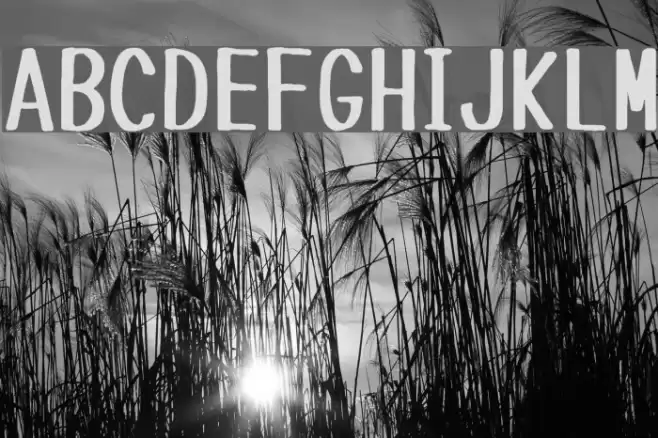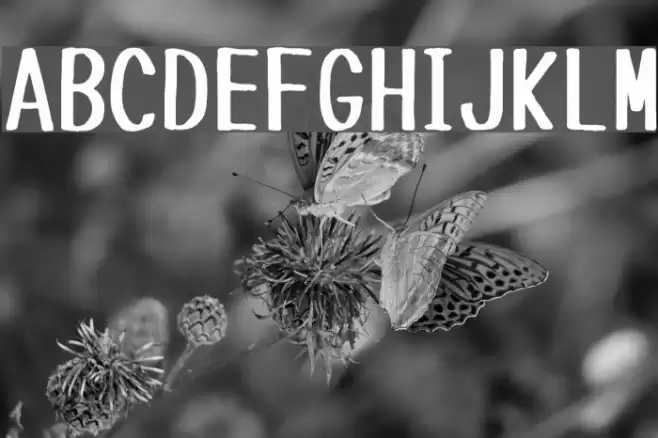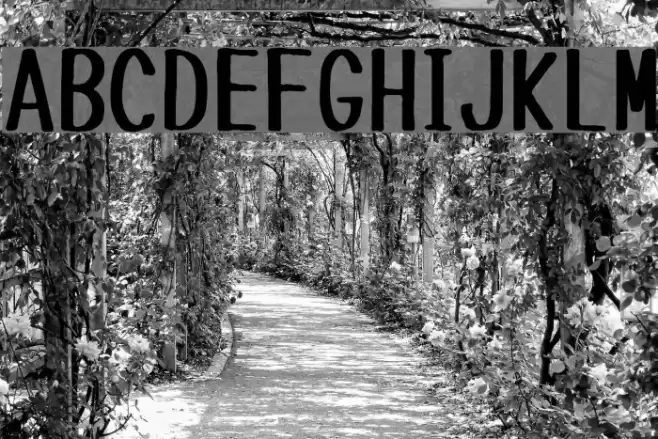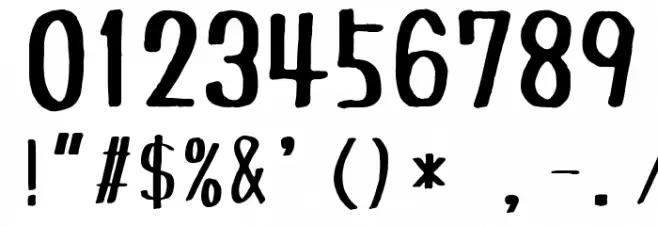
Tanuki Permanent Marker Font
Tanuki Permanent Marker Description
This font exudes a playful and casual vibe, reminiscent of handwritten text with a permanent marker. The characters are bold and slightly irregular, giving them a personal and informal touch. The strokes are thick and consistent, creating a strong visual impact. The uppercase and lowercase letters maintain a uniform style, while the numbers and special characters integrate seamlessly, enhancing the font's versatility. Its hand-drawn appearance makes it ideal for projects that require a friendly and approachable aesthetic.
A bold, handwritten-style font with a playful and casual vibe from Uncategorized fonts.
- Proposed Projects: Ideal for children's book covers, casual posters, greeting cards, and social media graphics.
- Overall Style: Casual